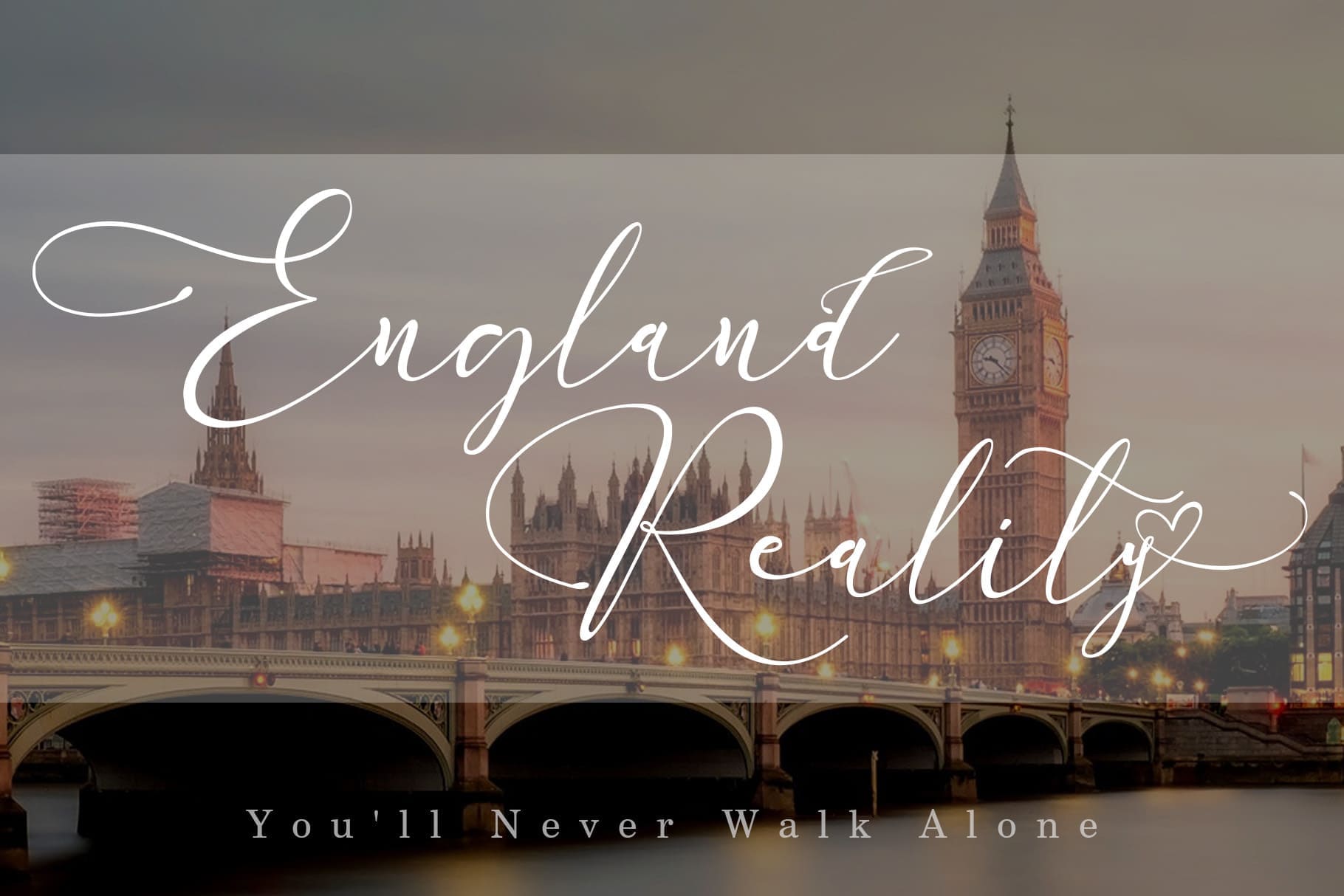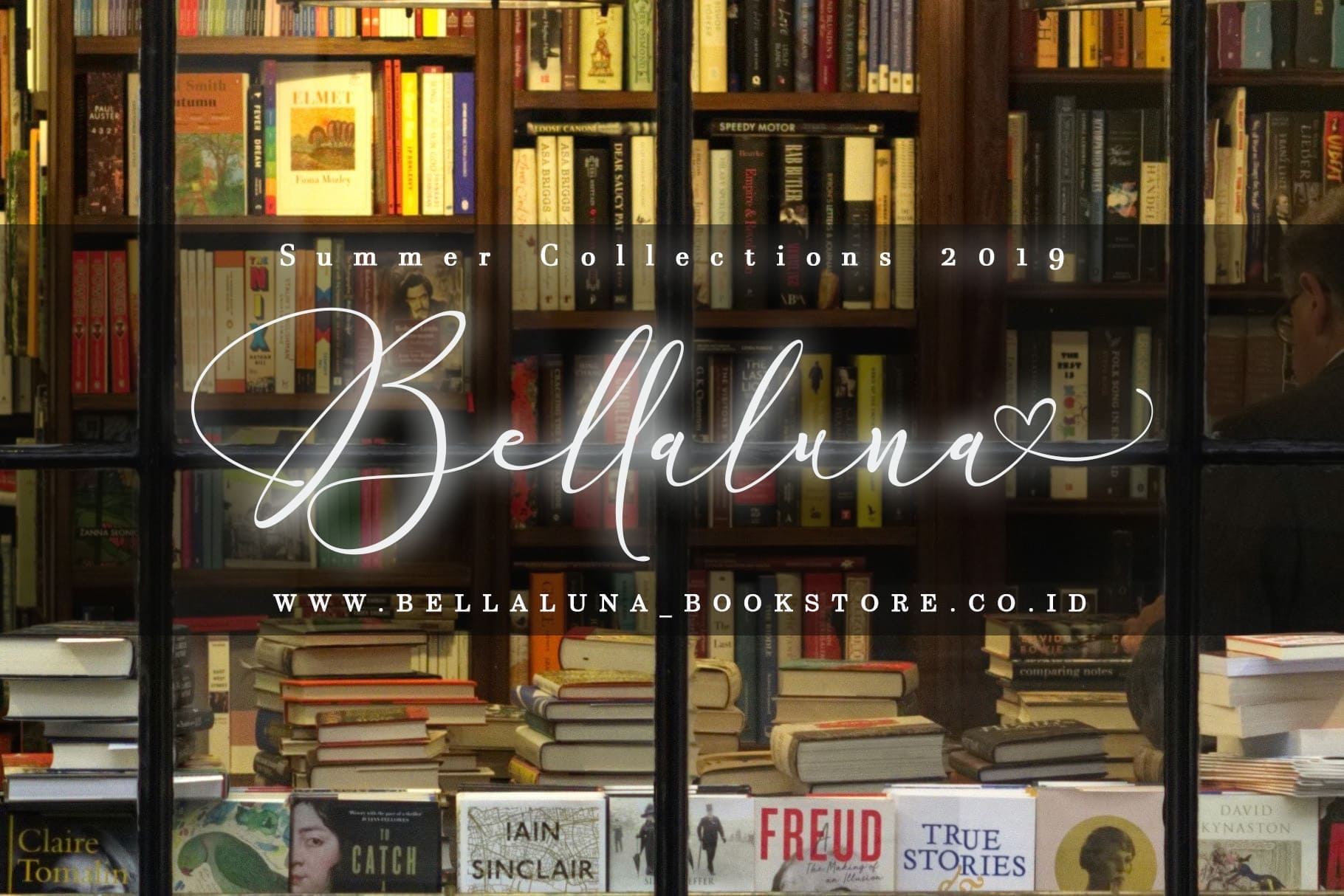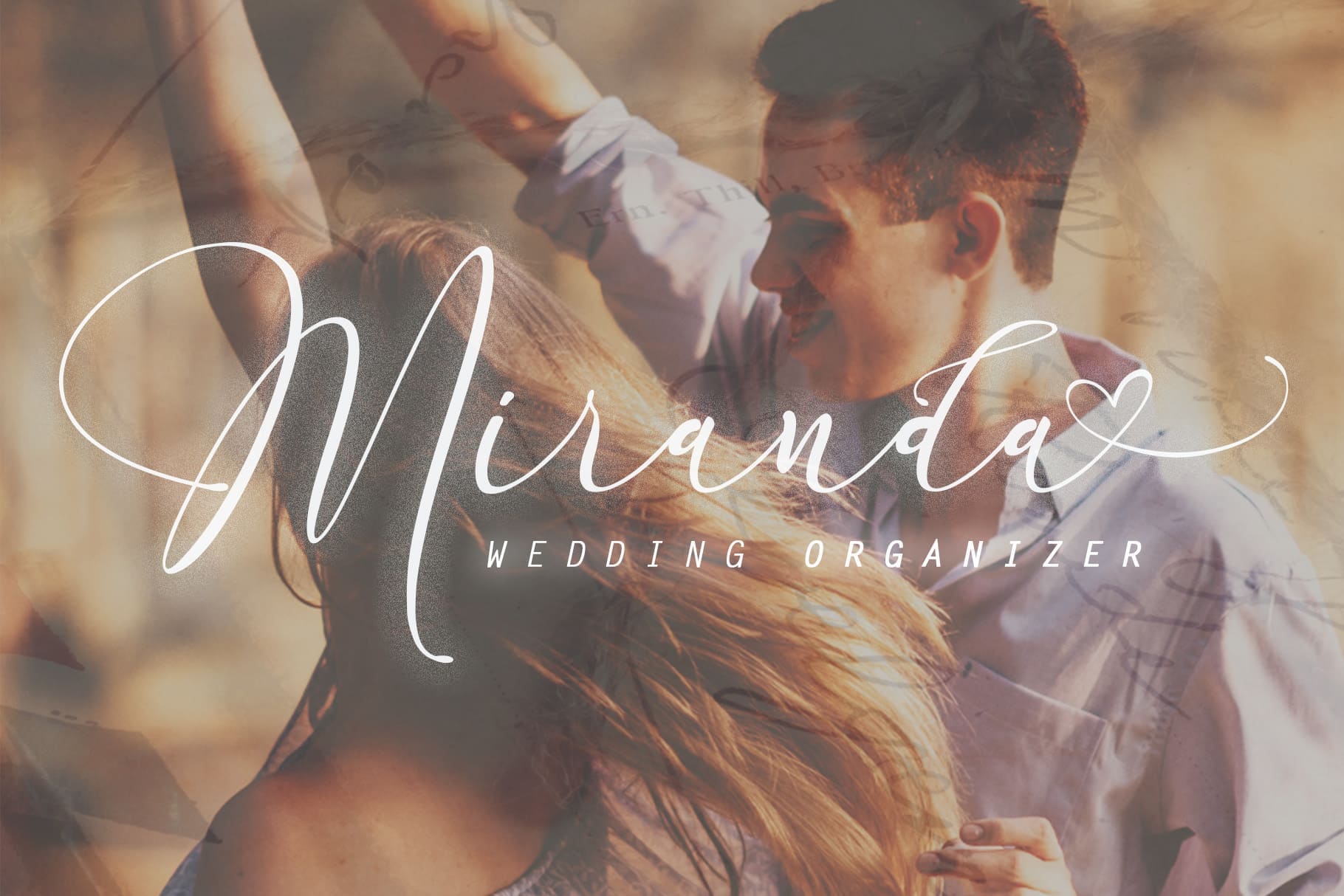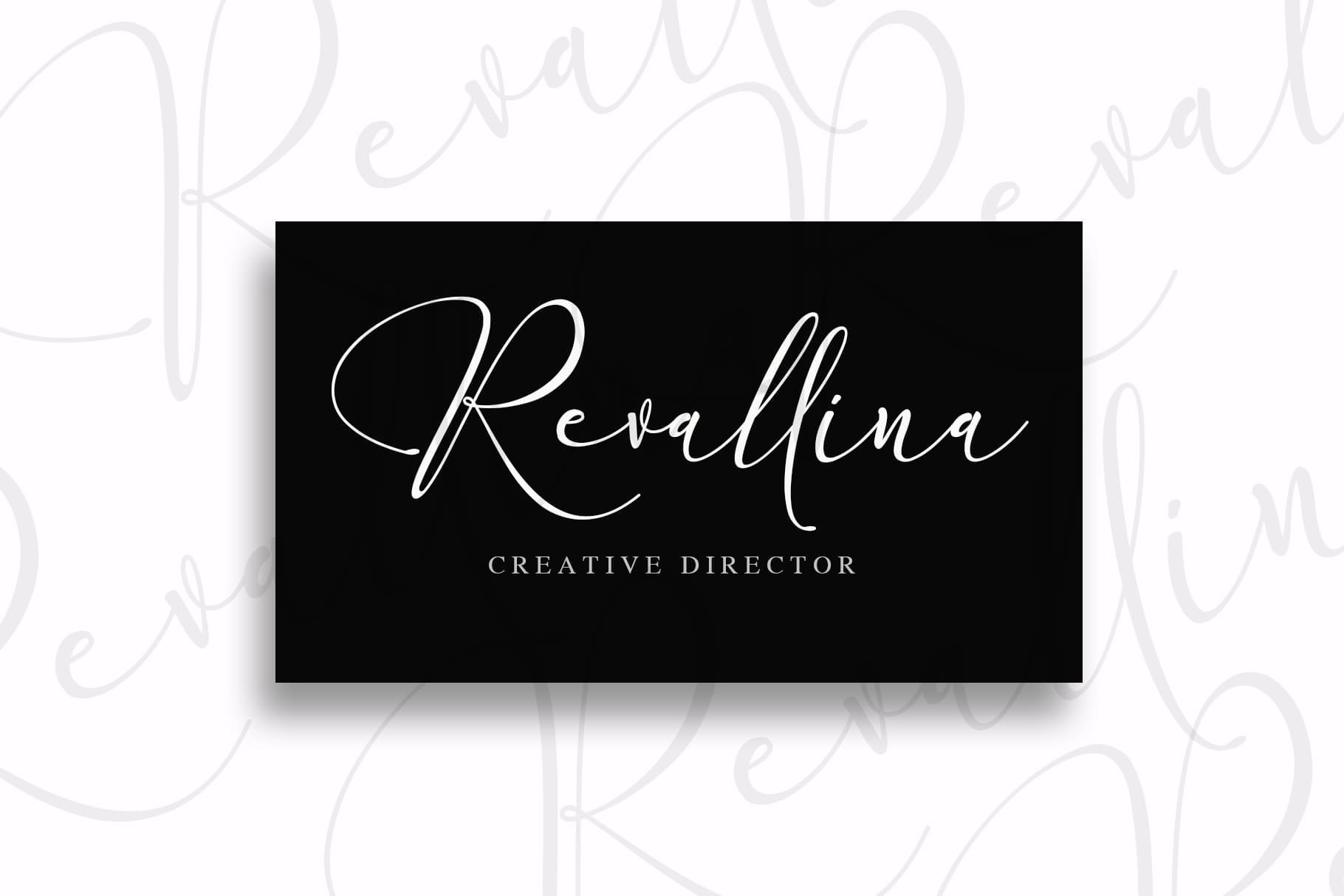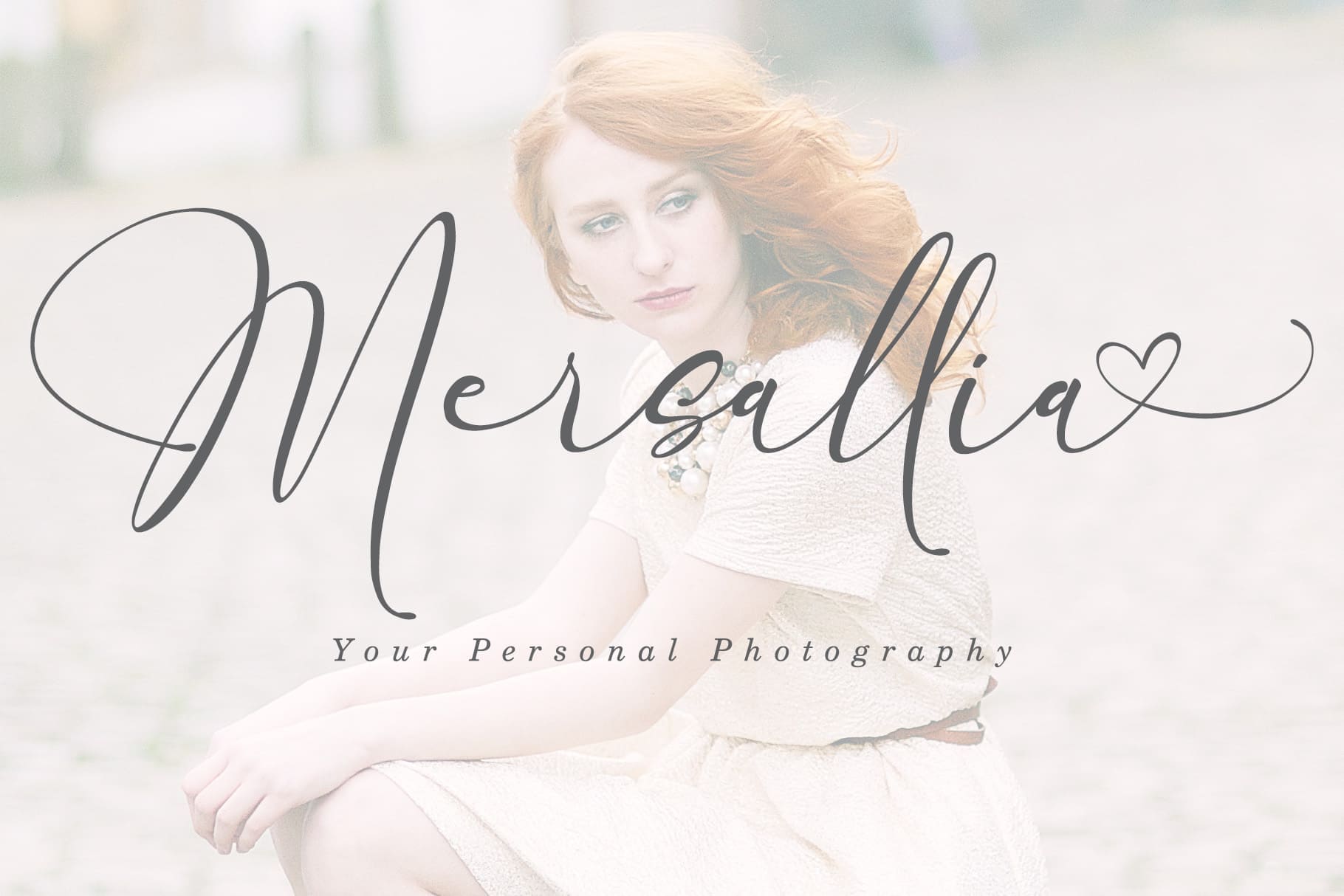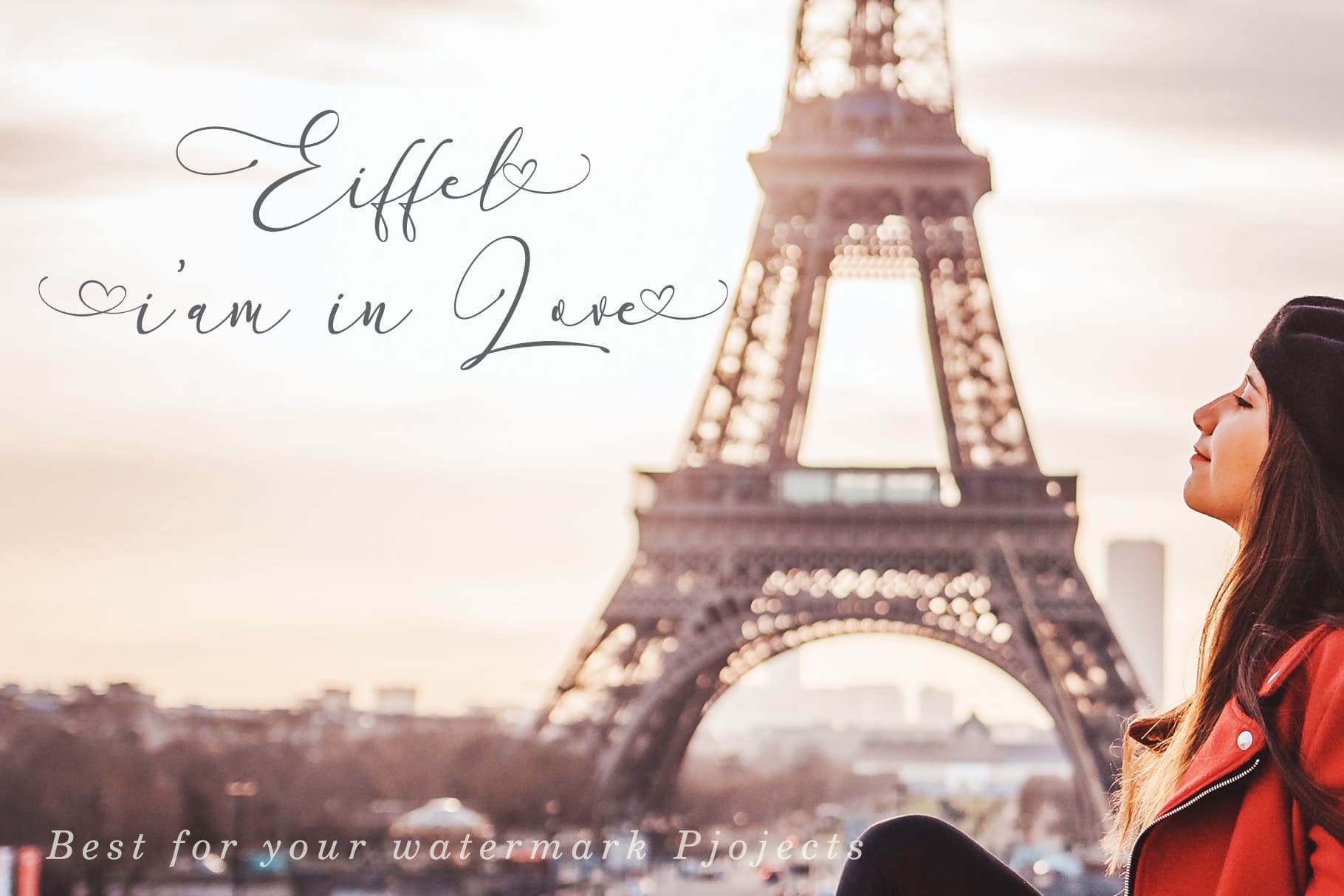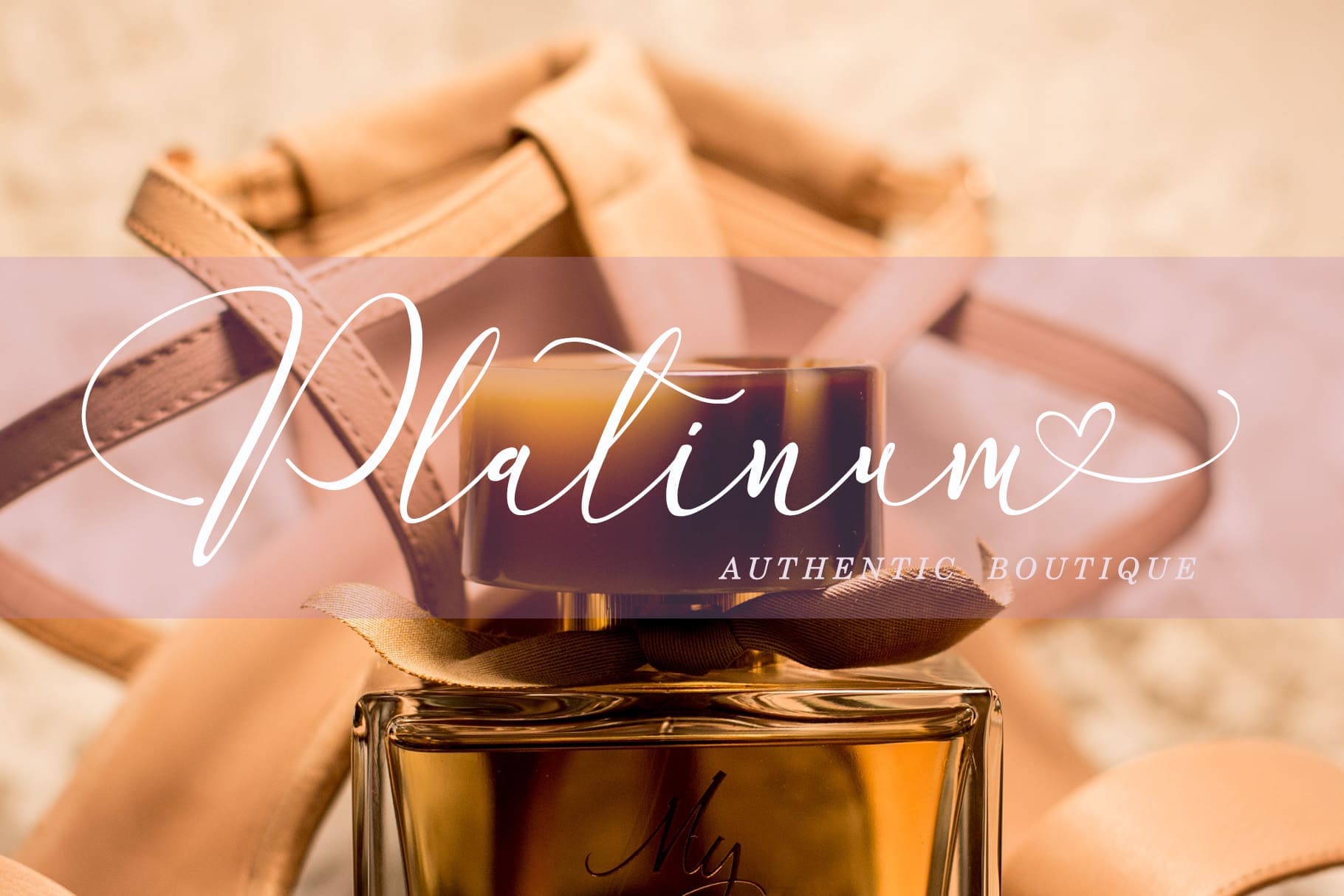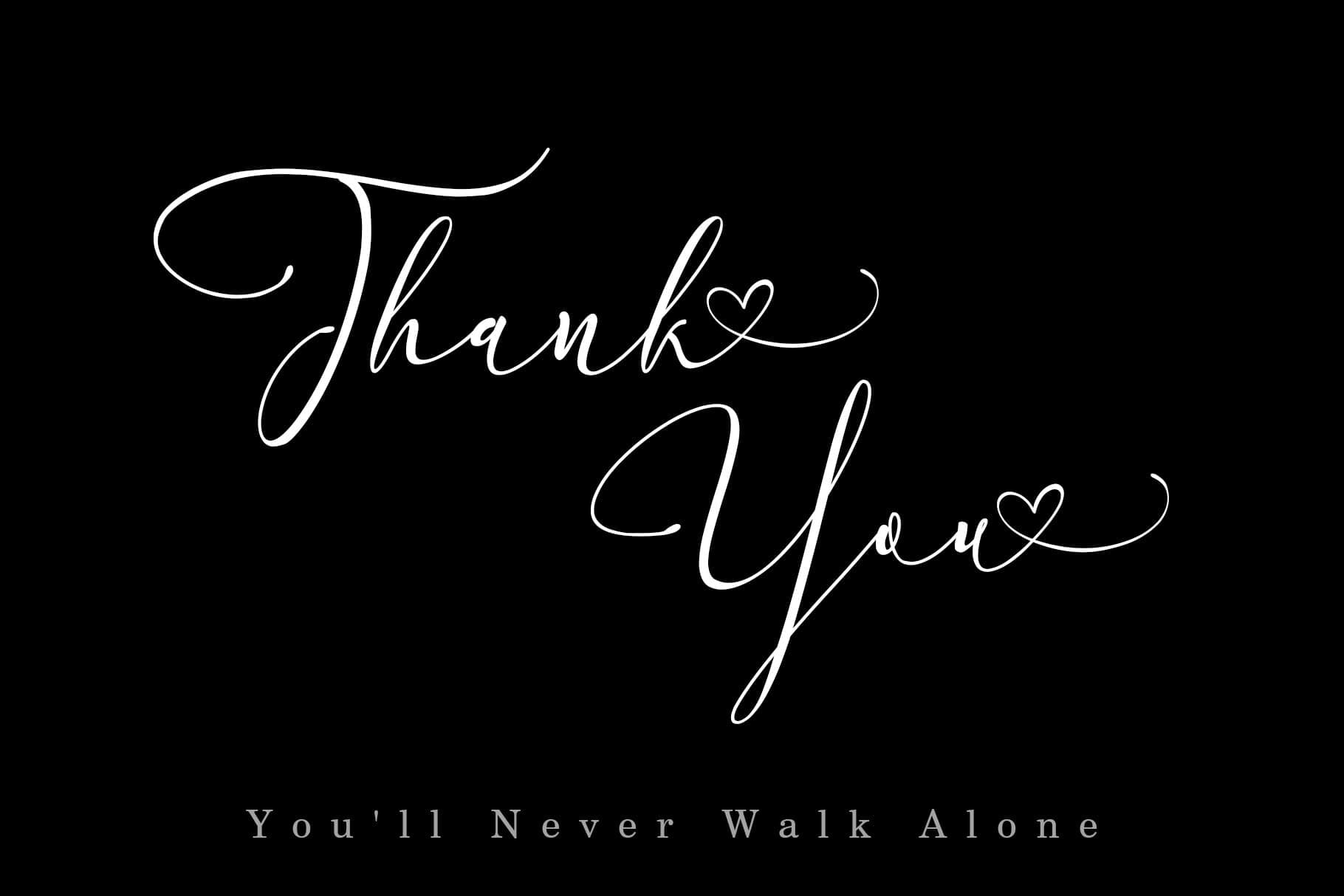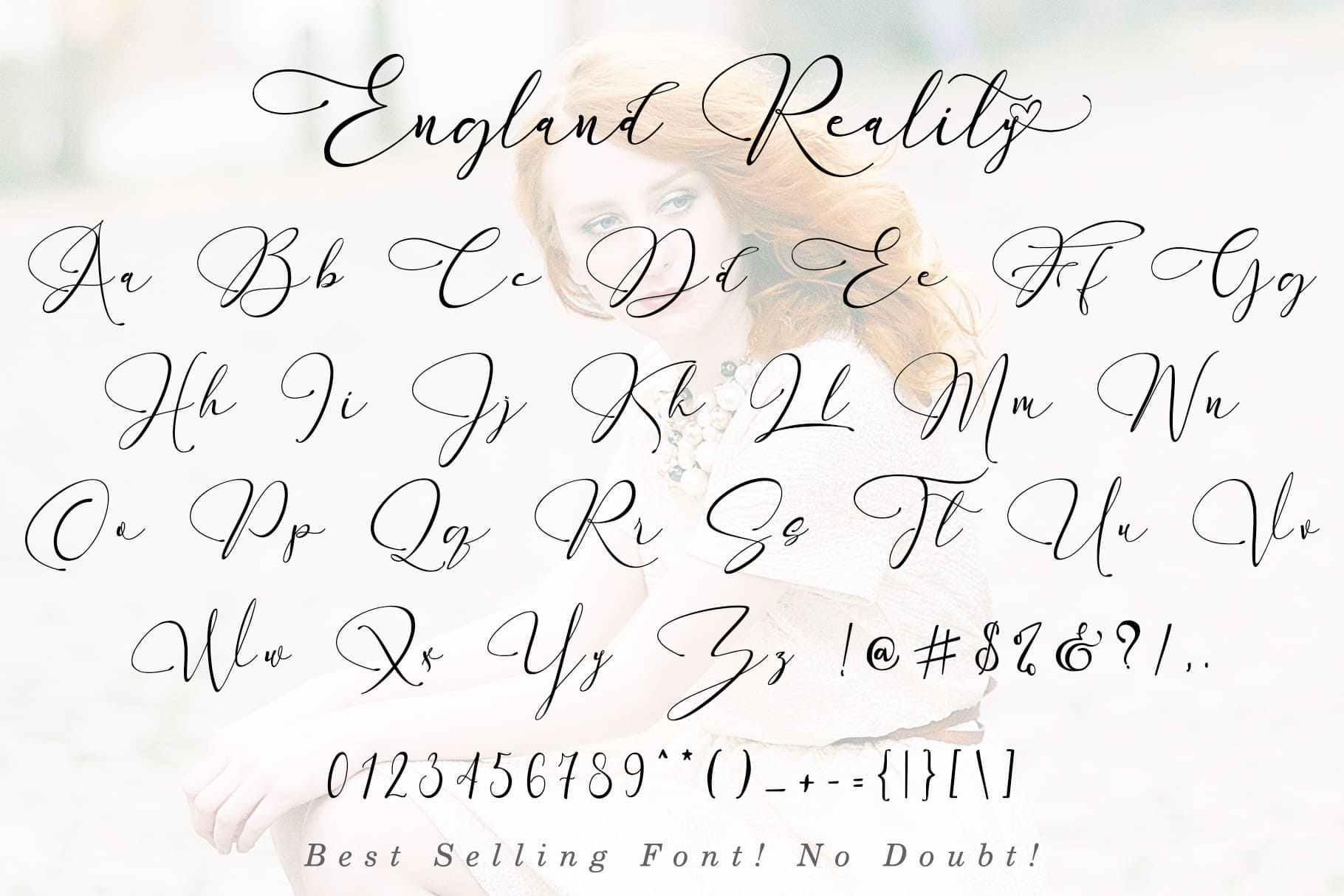
England Reality (1 font)
About AldeDesign
AldeDesign was founded by Alde Joox in Indonesia, Yogyakarta. AldeDesign specializes in affordable scripts from very casual to very elegant. The design group is obsessed with product quality, beauty, and application. The fonts are perfectly suited for headlines, invitations, fashion, and packaging design.